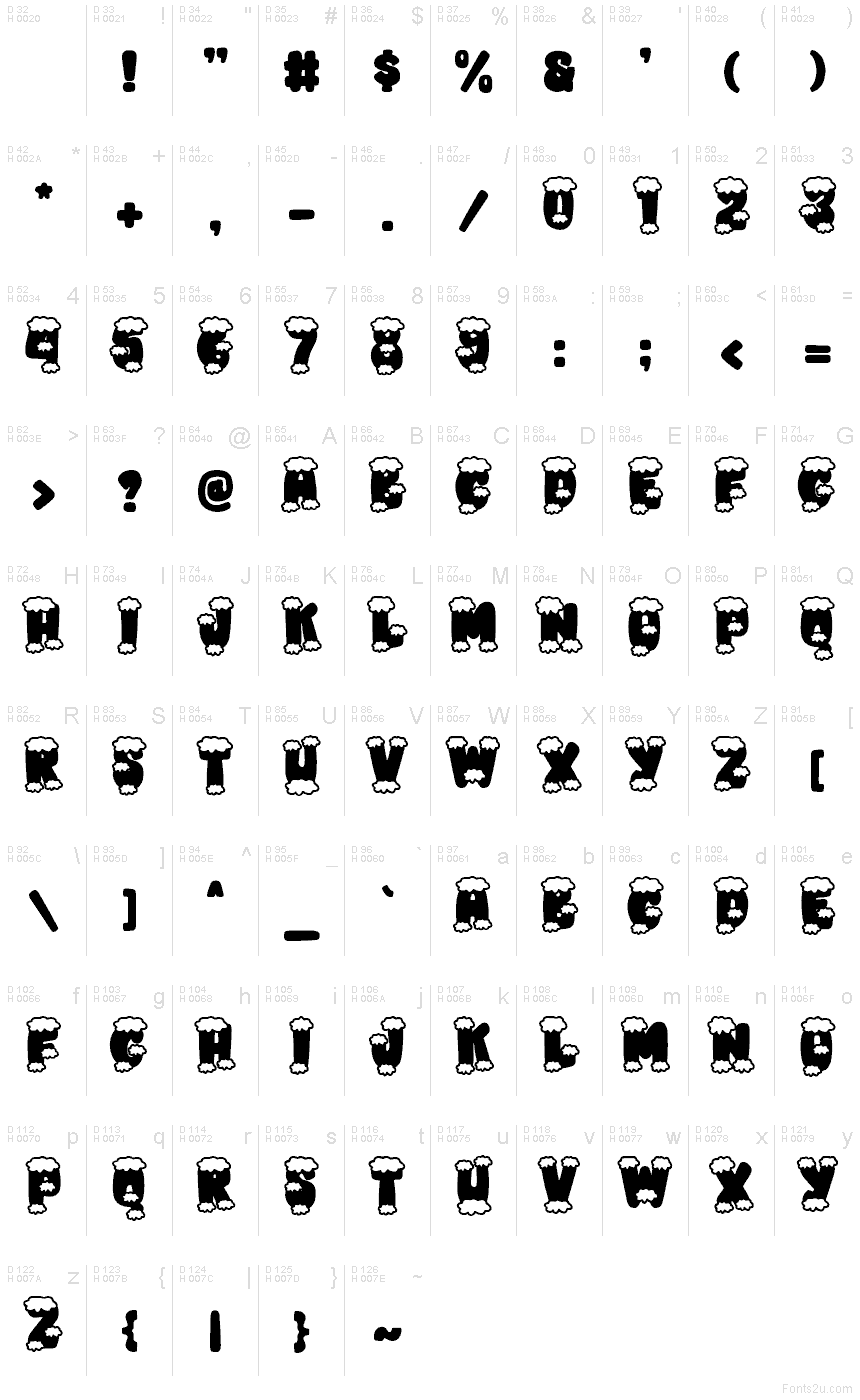
Retro Snow
Retro Snow font by DM Letter Studio - Dimas Prasetyo is a free holiday decorative typeface that turns every word into a snowy cartoon scene. Bold, bubbly letterforms are dipped in chunky white “snowcaps,” with soft, rounded edges that feel like packed snowballs and frosted cookies. The black fill and crisp outlines keep it highly legible, so even with all the fluffy ornamentation, headlines still read clearly at a glance.
Using Retro Snow, you can instantly dress up Christmas cards, kids’ party invites, winter festival posters, classroom bulletin boards, YouTube thumbnails, and seasonal social media graphics. This free font shines at large sizes, where the playful snow drifts really show. Pair it with a clean, simple sans serif for body text to keep your layouts readable while Retro Snow brings all the festive character up top.